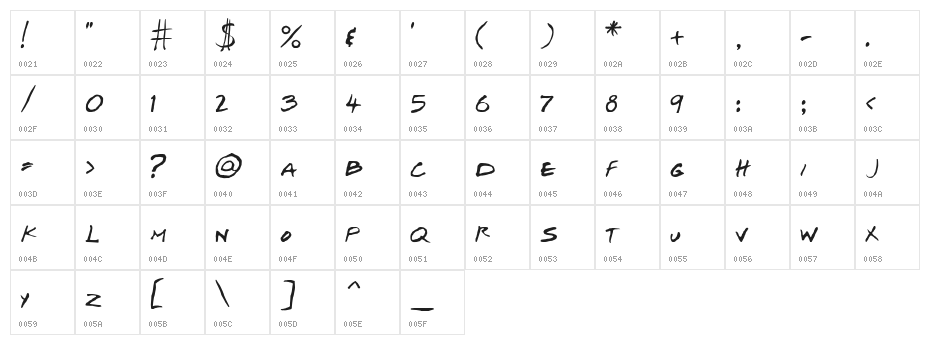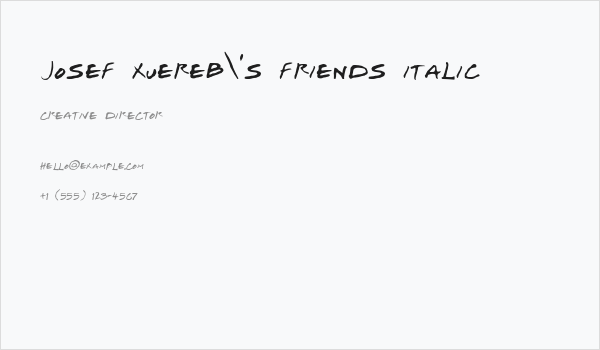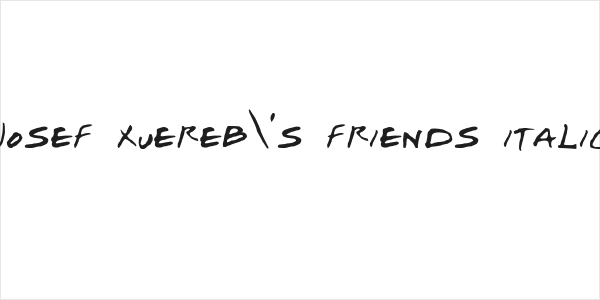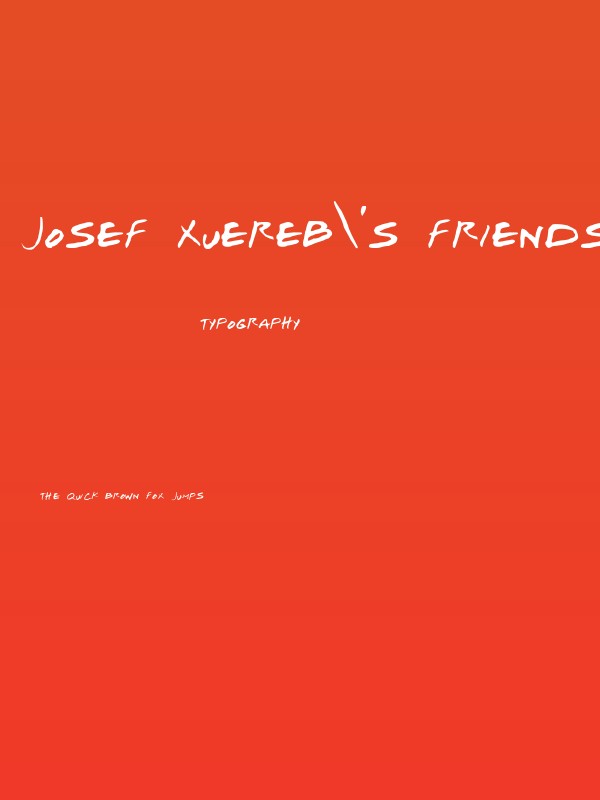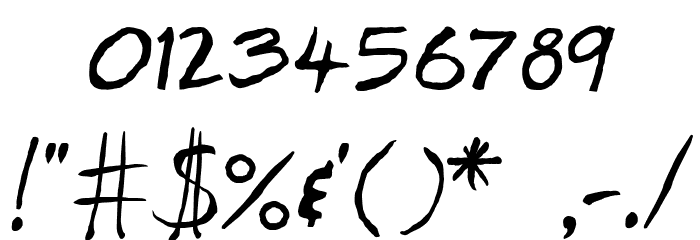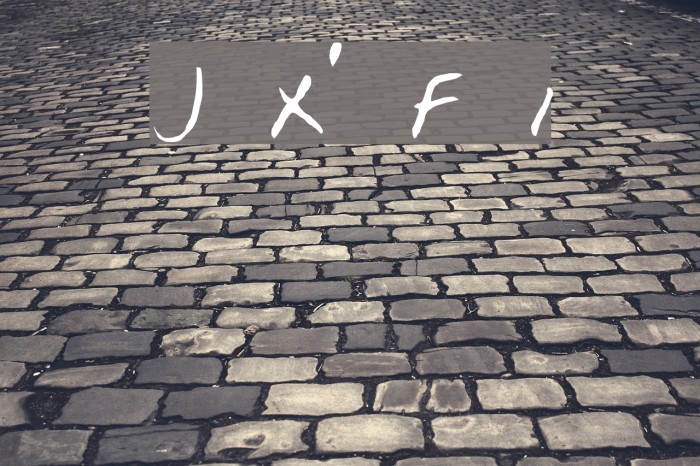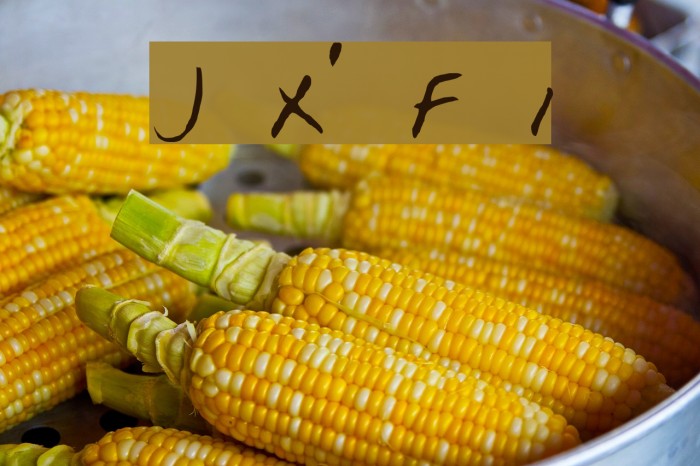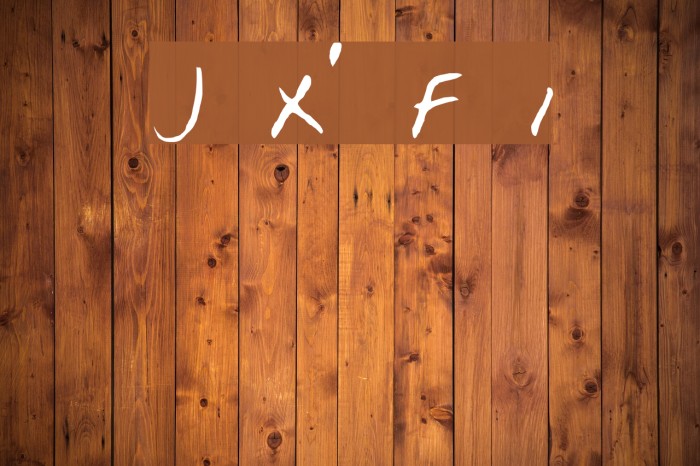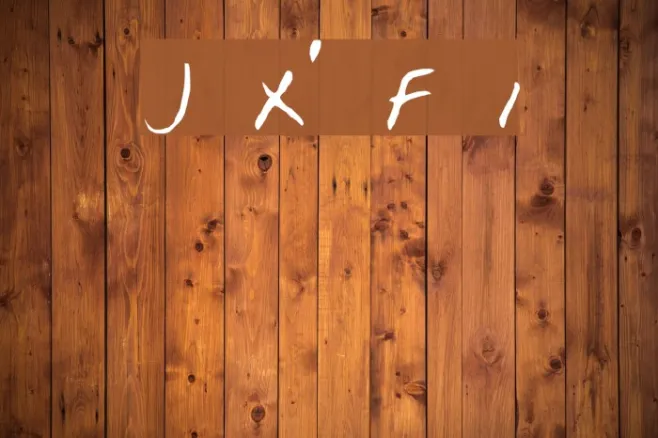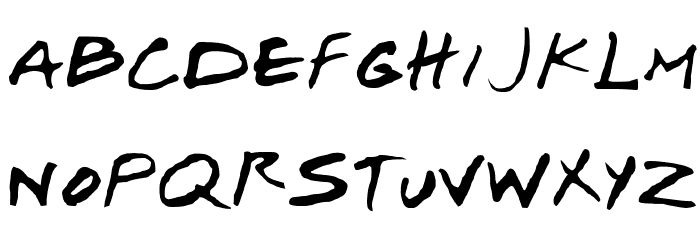
Josef Xuereb's Friends Italic Font
Josef Xuereb's Friends Italic Description
This font exhibits a dynamic and expressive handwritten style, characterized by its fluid and slightly irregular strokes. The letters have a natural, organic feel, with varying thickness that adds a sense of movement and personality. The uppercase and lowercase letters maintain a consistent style, with a slight slant that enhances the italic nature of the font. The numerals and special characters are crafted with the same attention to detail, ensuring a cohesive look across all glyphs. This font's unique charm makes it suitable for projects that require a personal touch or an artistic flair.
| Use Case | Logos, Headlines, Artistic projects |
| Proposed Projects | Ideal for personal branding, invitations, greeting cards, and artistic projects. |